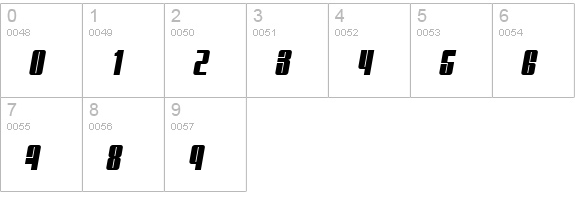
Glare Italic Font Details
Glare Italic is a distinctive, italic variant in the Glare typeface family \xE2\x80\x94 well suited to design and typography projects.
Introducing Glare Italic font, a sleek and stylish typeface perfect for adding a touch of elegance to your designs. With its slanted and sophisticated appearance, Glare Italic exudes a sense of modernity and sophistication. The flowing curves and sharp angles of this font create a dynamic and eye-catching look that is sure to captivate your audience. What sets Glare Italic font apart is not only its striking design, but also the fact that it is available for free! That's right, you can easily download this stunning font at FontsMarket.com without any cost. Whether you're working on a branding project, a website design, or any other creative endeavor, Glare Italic font is sure to elevate your work to the next level. Don't miss out on this fantastic opportunity to enhance your designs with this beautiful and versatile typeface. Download Glare Italic font today and let your creativity shine!